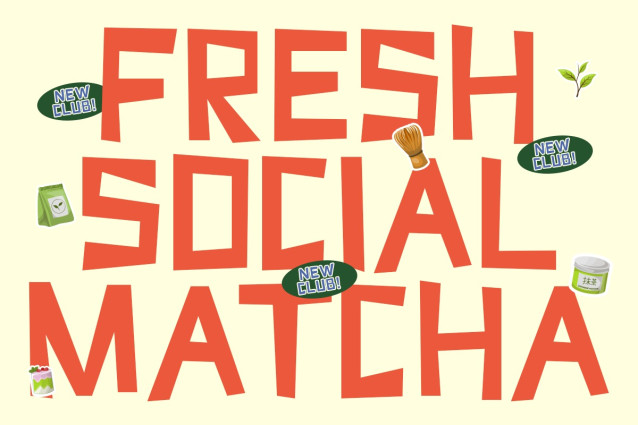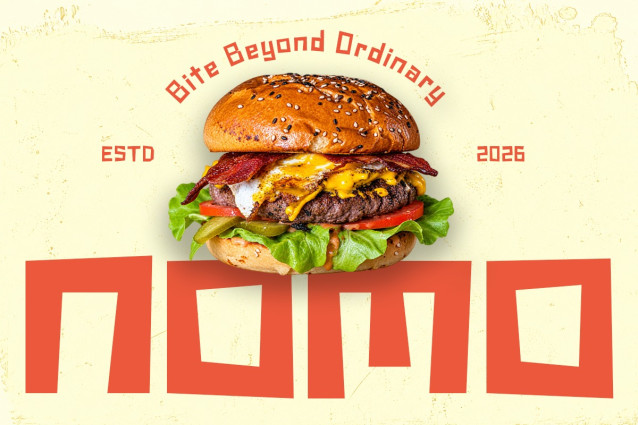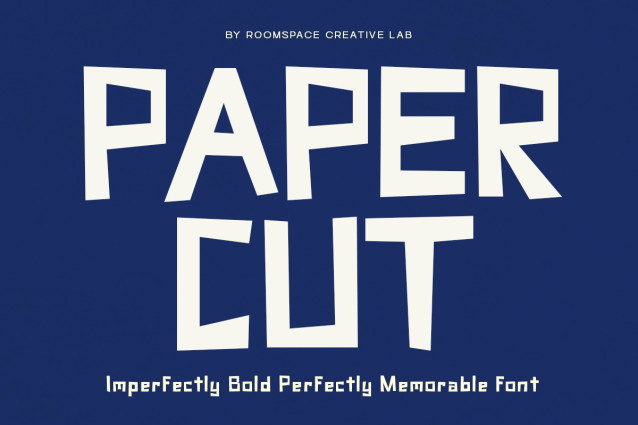
Paper Cut is a bold, playful display typeface designed with irregular proportions, geometric shapes, angular cuts, and distinctive letter details. Its unconventional forms and imperfect construction create strong, expressive headlines with a quirky handmade personality while maintaining clear and recognizable letterforms.
Designed primarily for display use, Paper Cut is ideal for creative branding projects that need a bold and energetic typographic presence. Whether you’re creating logos, product packaging, posters, festival graphics, editorial layouts, food and beverage branding, advertising visuals, social media graphics, or other creative designs, this typeface brings a playful character and strong visual impact to every composition.
Its distinctive and irregular letterforms make Paper Cut especially suitable for expressive typography, creative headlines, retro-inspired graphics, and contemporary visual identities where type needs to become an important part of the overall design.